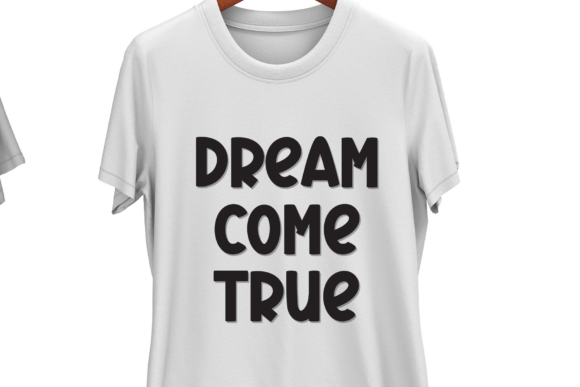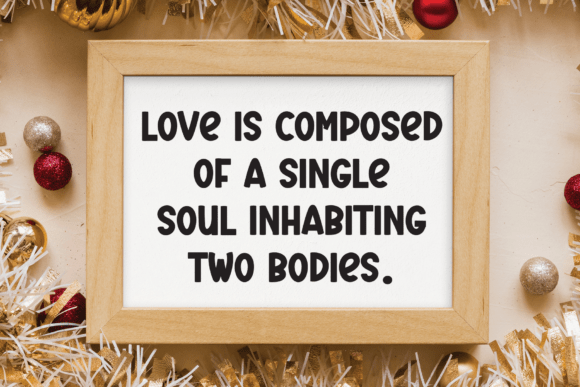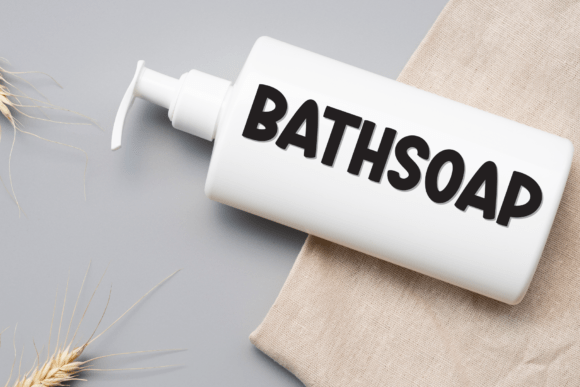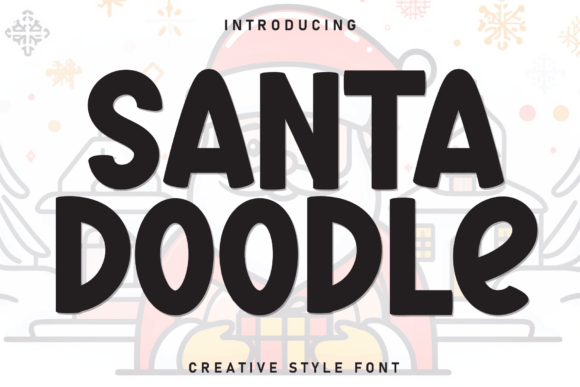
Introduction to Santa Doodle Font
Discover the irresistible charm of this distinctive handwritten display font that exudes both sweetness and amiability.
This font overflows with playfulness and joy, making it an excellent choice for your charming wedding invitations, heartfelt cards, or any design that craves a dash of fun Elevate your creative ventures and add a wonderfully unique touch with this delightful font.